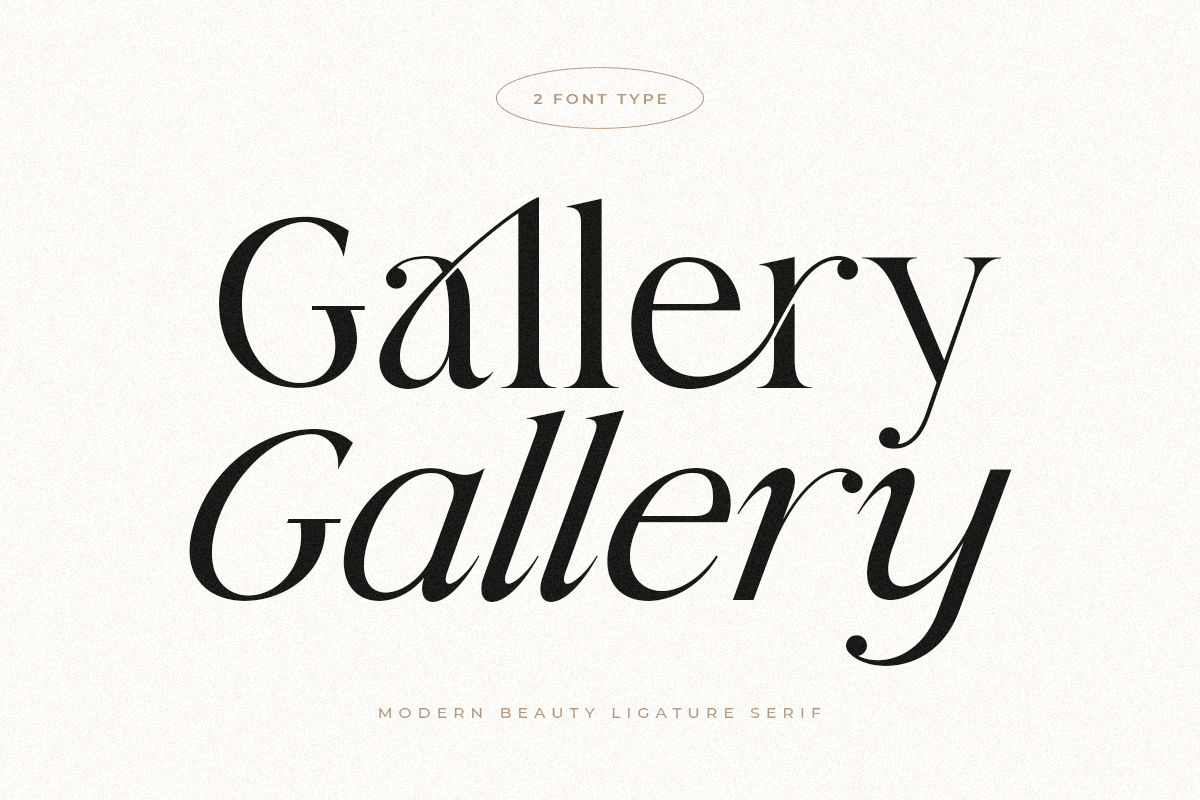
Gallery
-Modern Beauty Ligature Serif
A Modern Beauty Ligature Serif font that we created special for elegant branding needs, with extra alternates in unique shape will be ready to add value of your brand. It so nice to leverage designer or product owner that need solutions to make their design look more classy and modern. And specially for Gallery font, We prepared any alternate characters to help you create unlimited variations for your creative needs.
Gallery Modern Beauty Ligature Serif font ready with:
• Any options to get creative variations (combination of Ligature characters)
• Preview as a inspirations that you can do with Gallery font